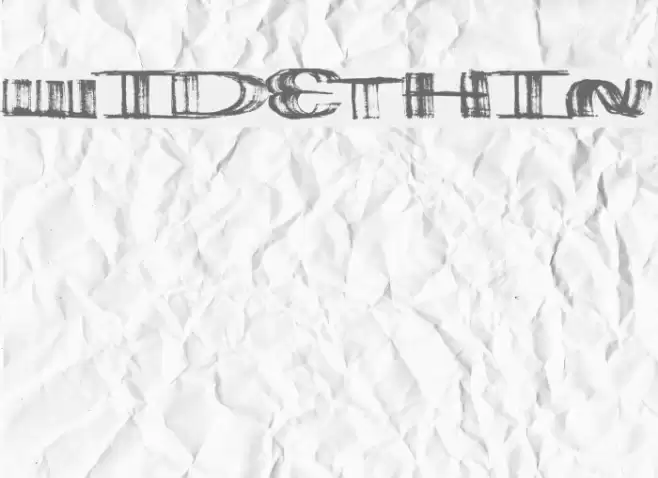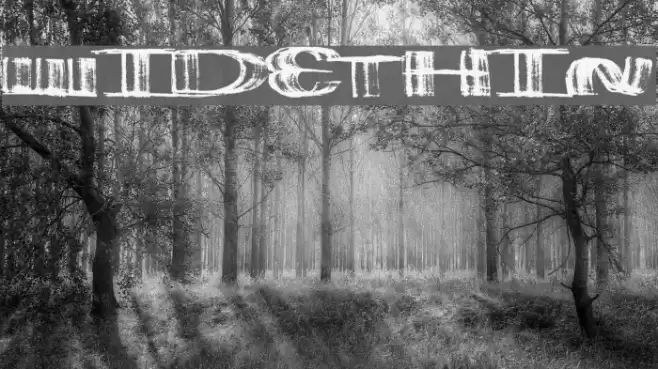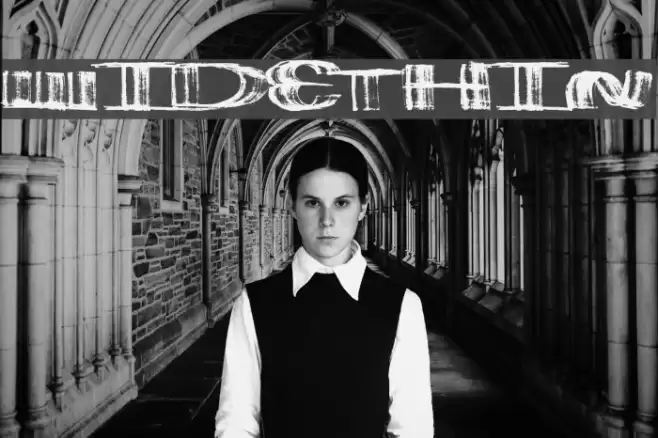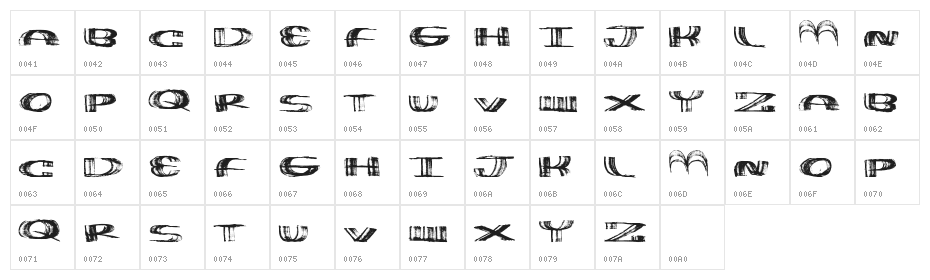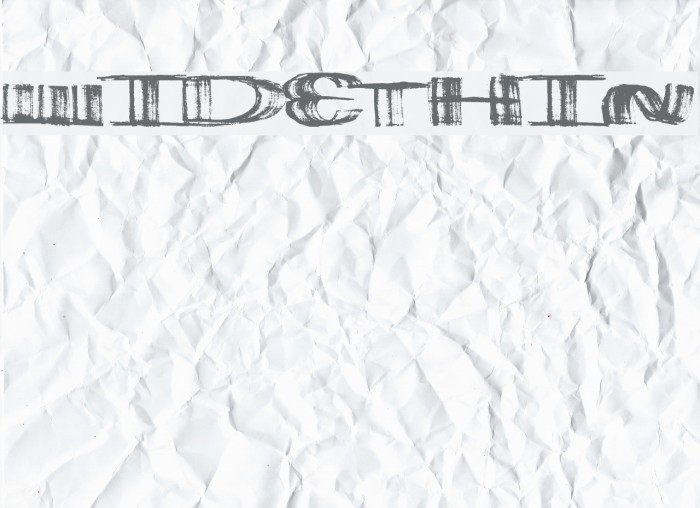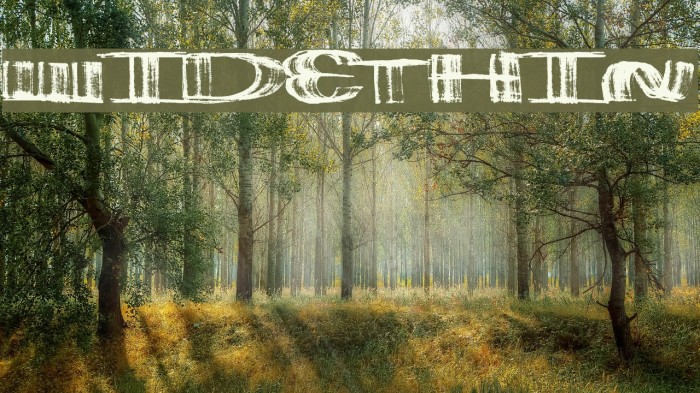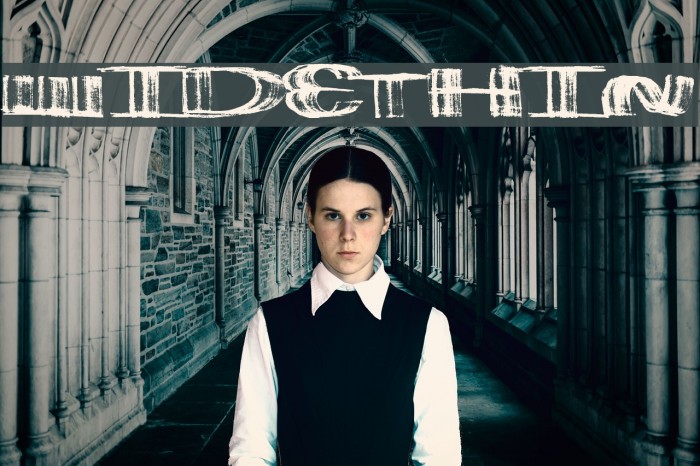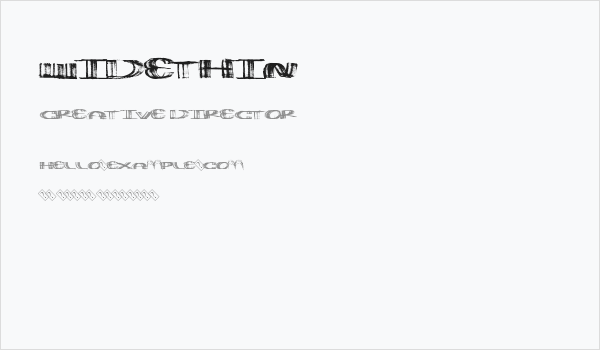
WideThin Font
WideThin Description
This font features a unique and artistic design with a distressed, grunge-like appearance. The characters are elongated and stretched horizontally, giving them a wide and thin look. The strokes are uneven, with a mix of thick and thin lines that create a high contrast effect. The overall style is decorative and modern, with a touch of edginess that makes it stand out. The font's irregularities and textured look suggest a hand-drawn or sketched quality, adding to its visual interest.
A wide, thin, and distressed font with high contrast and a modern, decorative style from Distorted Eroded fonts.
- Proposed Projects: Ideal for edgy branding, album covers, posters, and creative projects that require a bold, artistic touch.
- Width: Expanded
- Overall Style: Modern, Decorative
- Use Case: Logos, Posters, Headlines